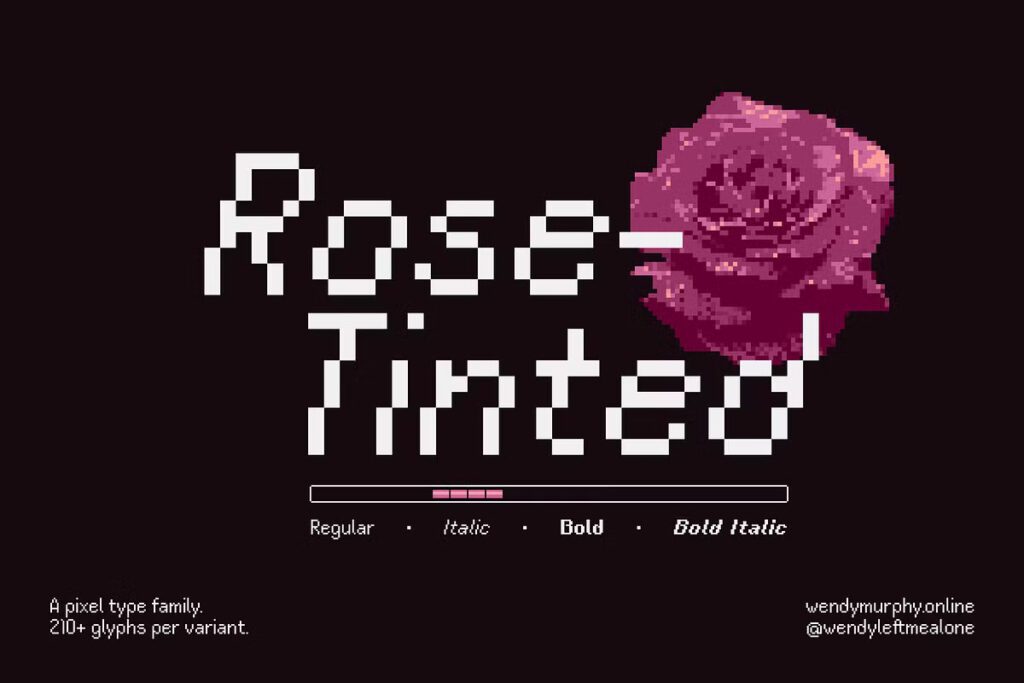
Rose-Tinted | Pixel-Based Type Family: A Retro Vibe for Modern Designs
If you’re looking to infuse your designs with some retro gaming nostalgia, the Rose-Tinted pixel-based type family is your perfect match. Inspired by iconic video games like Super Mario 64 and The Legend of Zelda: Link’s Awakening, Rose-Tinted brings a unique touch of personality through its pixel-based typography.
Pixel fonts may have been around for decades, but Rose-Tinted stands out due to its comprehensive approach that offers bold, italic, and bold italic variants—an impressive feat considering the inherent limitations of the pixel grid system.
Key Features of Rose-Tinted Pixel Typeface
1. Versatile Type Family with Four VariantsRose-Tinted comes with four variants—Regular, Italic, Bold, and Bold Italic—making it highly versatile for different design needs. Whether you’re looking to create clean, sharp headlines or need something with a little more weight, Rose-Tinted has you covered.
2. 216 Glyphs Per VariantEach of the four variants includes approximately 216 glyphs, offering a wide range of characters and symbols for your design.
This includes:
Uppercase and Lowercase Letters
Numerals
Ligatures (both standard and discretionary)
Symbols and Formulas
Accent Marks for multilingual support
3. Perfect for Retro-Inspired DesignsInspired by retro video games, Rose-Tinted adds a touch of nostalgic charm to your design projects. Whether you’re creating a game-inspired logo, fun branding, or poster art, this type family delivers a nostalgic yet modern aesthetic.
Ideal Uses for Rose-Tinted Font
Game Design: Bring the essence of retro video games into your UI and UX designs with Rose-Tinted’s pixel aesthetic.
Logo Design: Rose-Tinted’s bold and italic options make it perfect for creating memorable logos with a vintage, pixelated touch.
Posters and Social Media: Stand out with unique, eye-catching headlines and quotes using Rose-Tinted’s dynamic pixel style.
Branding Projects: Whether you’re designing merchandise or websites for brands that love retro vibes, this font will add the perfect creative flair.
Why Choose Rose-Tinted?
Pixel-based fonts can be a powerful way to evoke nostalgia and creativity in your designs, and Rose-Tinted takes it to the next level by combining classic design principles with modern versatility. Whether you’re building a throwback design for a game, creating playful logos, or adding fun typographic elements to your branding, this font family will meet all your creative needs.